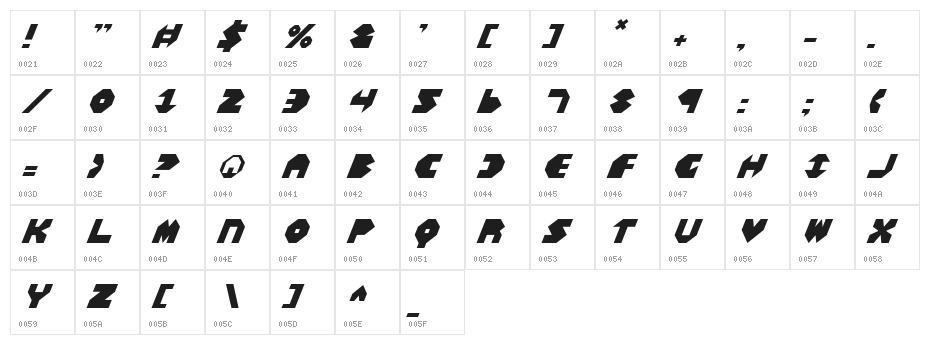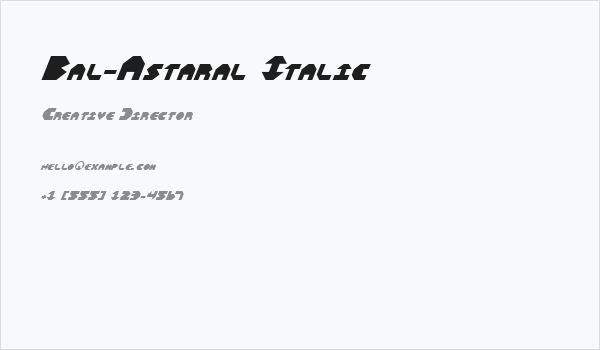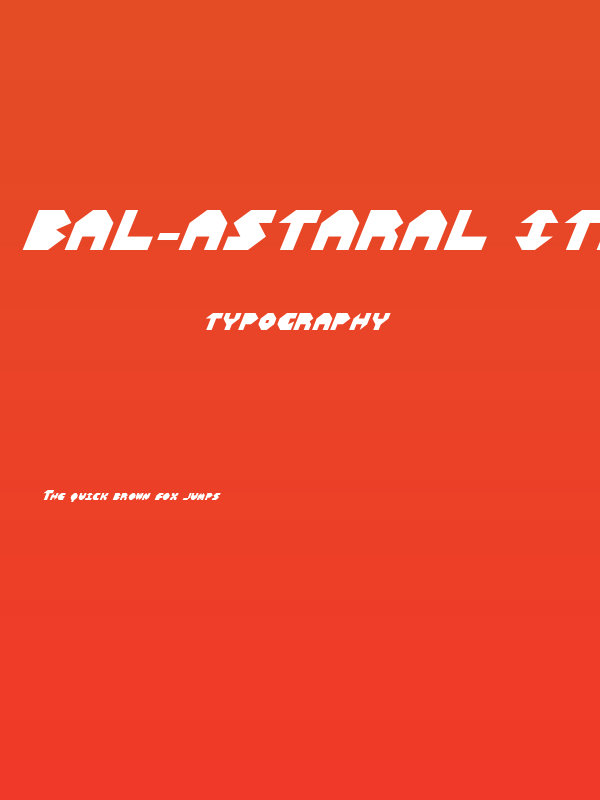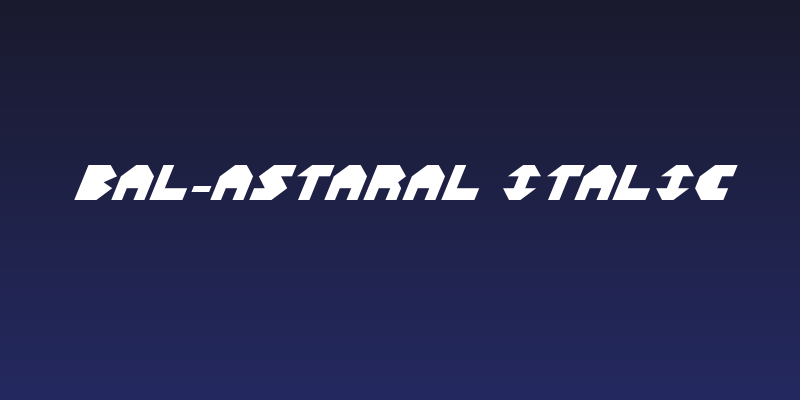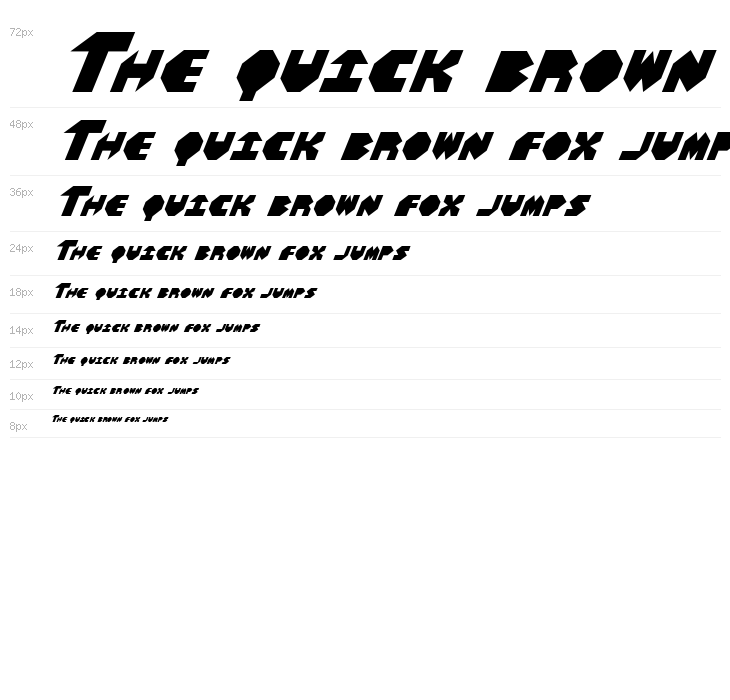
Bal-Astaral Italic Font
Bal-Astaral Italic Description
This font features a bold and angular design, characterized by sharp edges and a dynamic, italicized slant. The geometric shapes create a sense of movement and energy, making it stand out with its futuristic and edgy appearance. Each character is crafted with precision, maintaining a consistent style across uppercase, lowercase, numbers, and special characters. The boldness of the font ensures high visibility, while the italic style adds a touch of modernity and flair. Its unique design makes it suitable for projects that require a strong visual impact.
| Proposed Projects | Ideal for sci-fi themed designs, video game graphics, posters, and branding that requires a modern and dynamic look. |